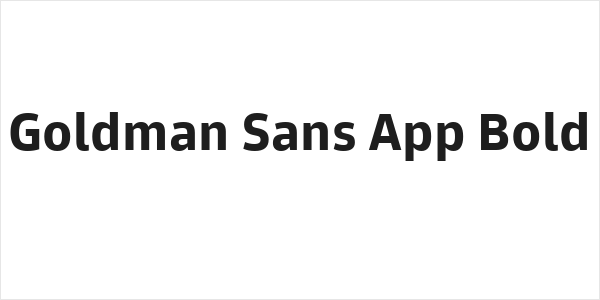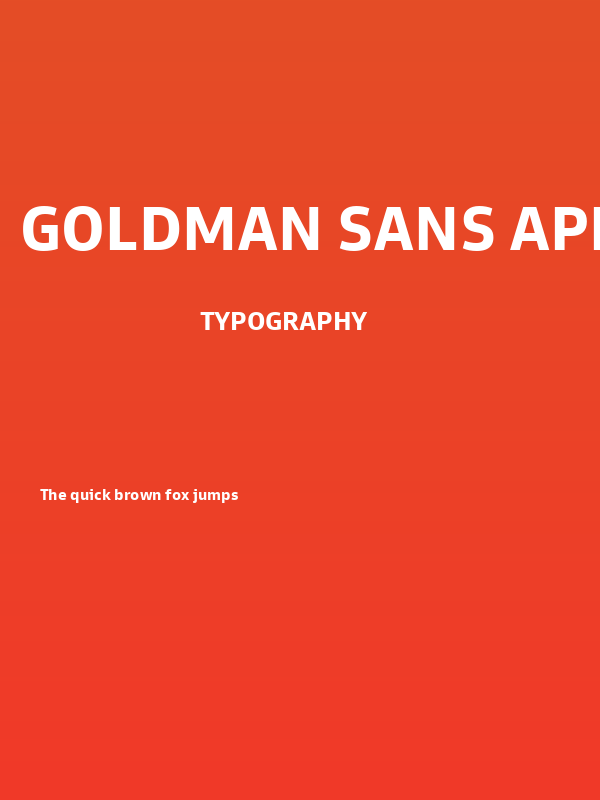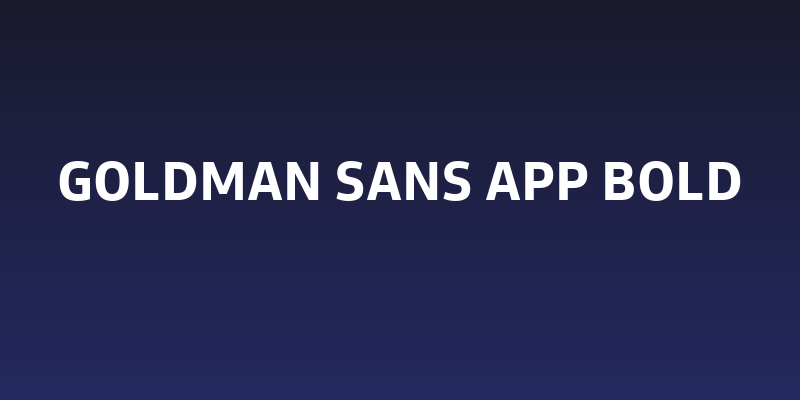
Goldman Sans App Bold Font
Goldman Sans App Bold Description
This font is a bold, sans-serif typeface characterized by its clean and modern appearance. The letters are evenly spaced with a consistent stroke width, providing a balanced and harmonious look. The uppercase letters are slightly taller than the lowercase, which are rounded and smooth, enhancing readability. The numerals are clear and distinct, making them suitable for various applications. Special characters are well-defined, maintaining the overall aesthetic of the font. This typeface is versatile, suitable for both digital and print media, offering a professional yet approachable feel.
| Use Case | Headlines, Logos, Digital interfaces |
| Proposed Projects | Ideal for branding, headlines, digital interfaces, and marketing materials. |